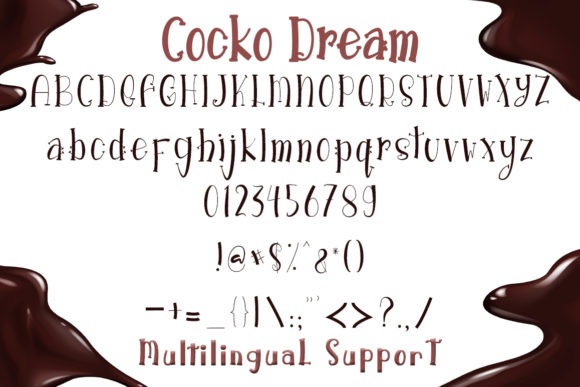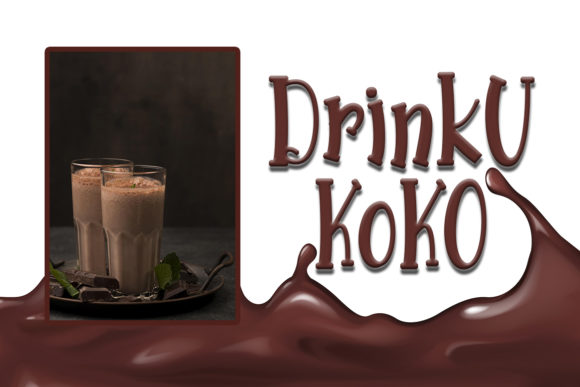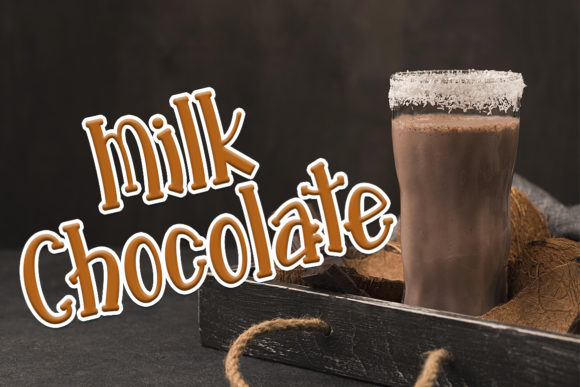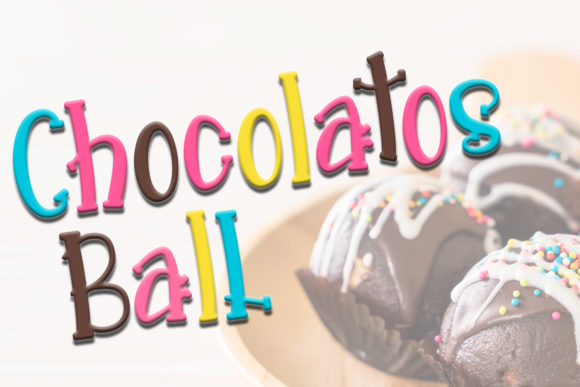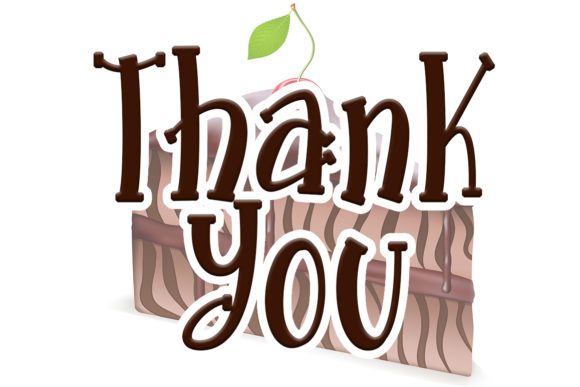
Cocko Dream Font: The Ultimate Choice for Creative Minds
Are you a designer, crafter, or DIY enthusiast looking for a font that can elevate your creative projects to new heights? Look no further than Cocko Dream, a cute and quirky handwritten font that’s taking the design world by storm. In this article, we’ll dive into the world of Cocko Dream and explore its features, benefits, and uses.
What is Cocko Dream Font?
Cocko Dream is a masterfully designed handwritten font that’s perfect for anyone looking to add a touch of personality to their creative projects. With its unique and quirky style, this font is sure to capture the attention of your audience and leave a lasting impression. Whether you’re designing a logo, crafting a handmade card, or creating a social media graphic, Cocko Dream is the perfect choice.
Features of Cocko Dream Font
So, what makes Cocko Dream so special? Here are just a few of its standout features:
- Handwritten style: Cocko Dream has a beautiful, handwritten style that’s perfect for adding a personal touch to your designs.
- Unique and quirky: This font has a one-of-a-kind personality that’s sure to set your designs apart from the rest.
- Easy to read: Despite its playful style, Cocko Dream is easy to read and understand, making it perfect for use in a variety of applications.
- Versatile: Whether you’re designing a logo, creating a social media graphic, or crafting a handmade card, Cocko Dream is the perfect choice.
Benefits of Using Cocko Dream Font
So, why should you choose Cocko Dream for your next design project? Here are just a few benefits of using this amazing font:
- Adds personality to your designs: With Cocko Dream, you can add a touch of personality to your designs and make them stand out from the rest.
- Perfect for creative projects: Whether you’re a designer, crafter, or DIY enthusiast, Cocko Dream is the perfect choice for any creative project.
- High-quality design: Cocko Dream is a high-quality font that’s designed to look great in any application.
Uses of Cocko Dream Font
So, what can you use Cocko Dream for? The possibilities are endless! Here are just a few ideas to get you started:
- Logo design: Use Cocko Dream to create a unique and memorable logo for your business or brand.
- Social media graphics: Add a touch of personality to your social media graphics with Cocko Dream.
- Handmade cards and gifts: Use Cocko Dream to create beautiful, handmade cards and gifts for friends and family.
- DIY projects: Add a personal touch to your DIY projects with Cocko Dream.
In conclusion, Cocko Dream is a cute and quirky handwritten font that’s perfect for designers, crafters, and DIY enthusiasts. With its unique and playful style, this font has the potential to bring each of your creative ideas to the highest level. Whether you’re designing a logo, crafting a handmade card, or creating a social media graphic, Cocko Dream is the perfect choice. So why wait? Download Cocko Dream today and start creating amazing designs!
- What is Cocko Dream font?
- Cocko Dream is a cute and quirky handwritten font designed for creative projects.
- Is Cocko Dream easy to read?
- Yes, despite its playful style, Cocko Dream is easy to read and understand.